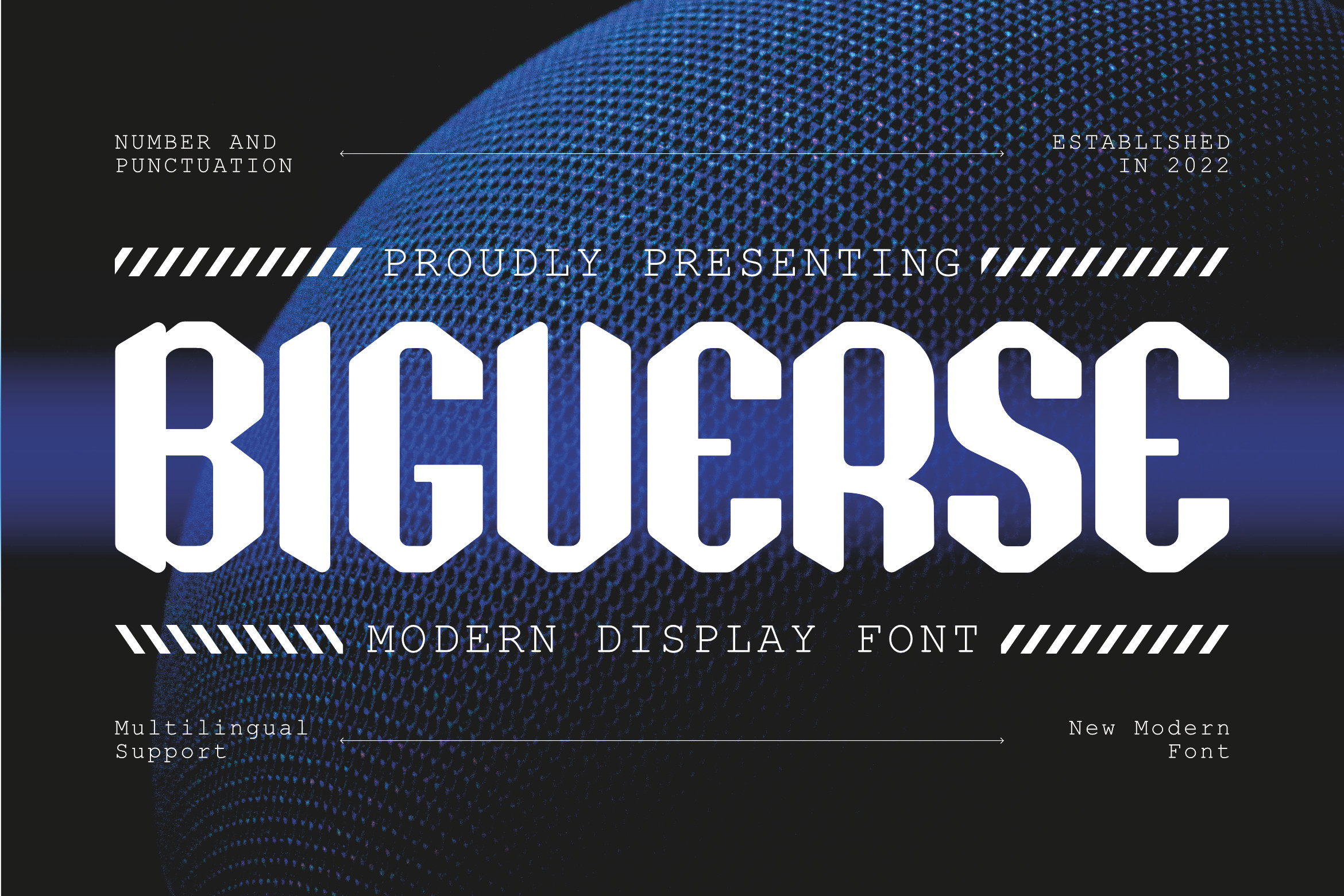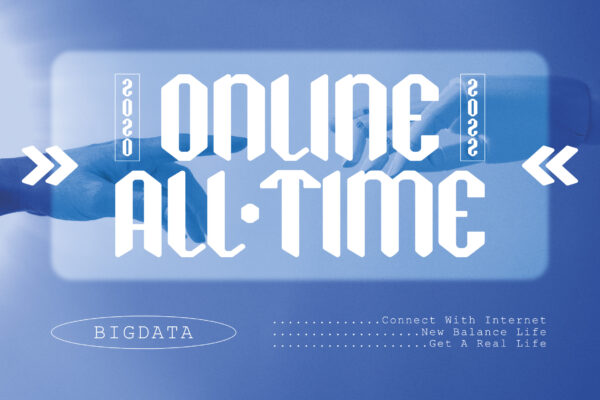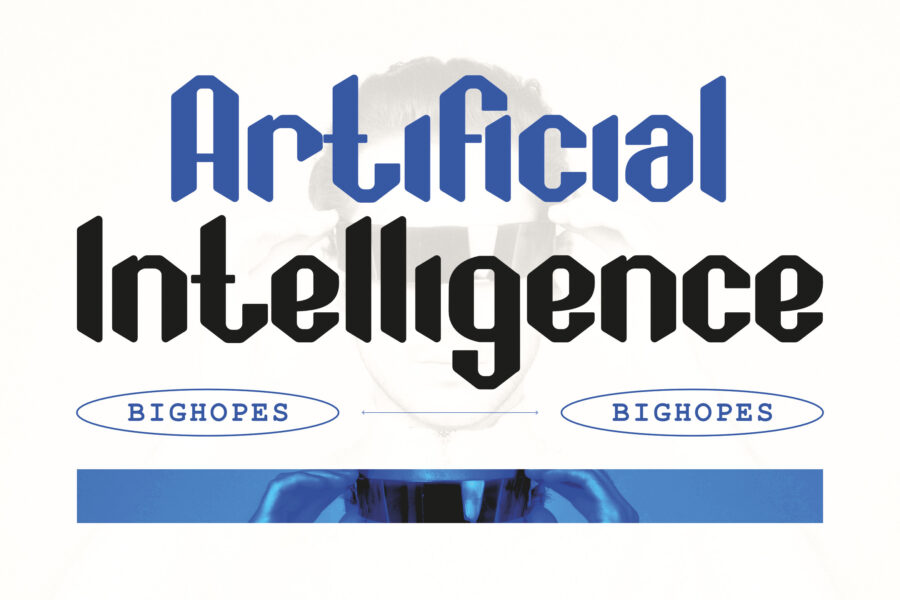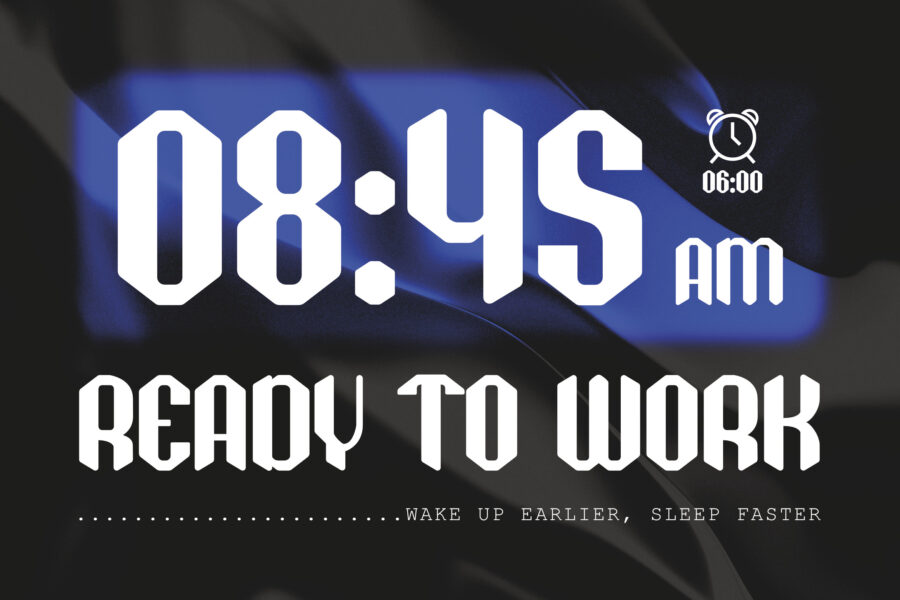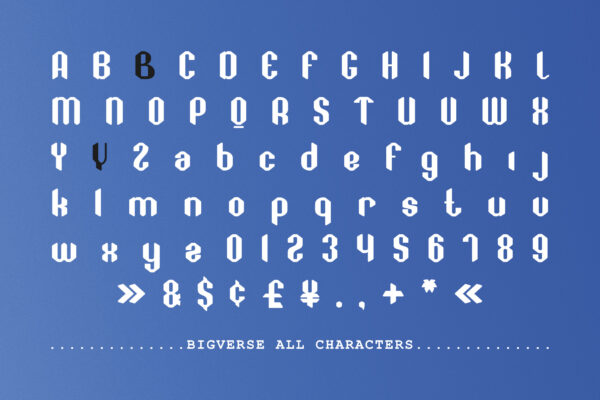
Bigverse is a futuristic display font with a strong geometric structure and a bold, commanding presence. Inspired by modern sci-fi aesthetics, this typeface features sharp edges and uniquely stylized cuts that make it ideal for tech, innovation, or digital-themed projects. Each character is carefully designed to stand out while maintaining excellent legibility in both print and screen formats.
Perfect for headlines, posters, branding, and any visual communication that requires a powerful impact, Bigverse offers multilingual support and a full set of characters, numerals, and symbols. Whether you’re creating a cyberpunk-inspired layout or a modern tech brand identity, Bigverse is engineered to elevate your message.
BIGVERSE